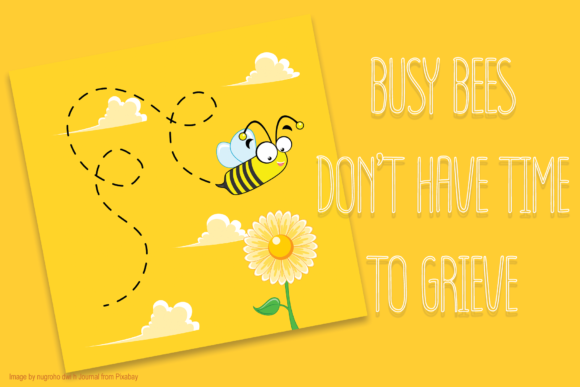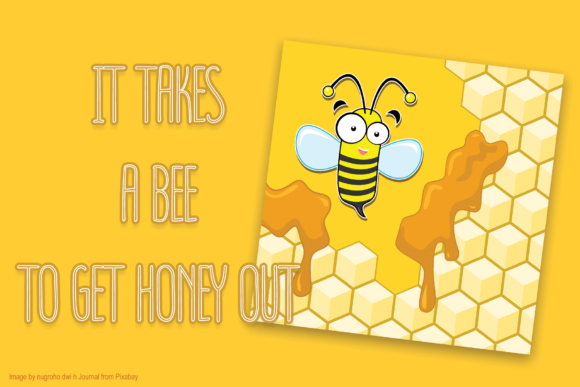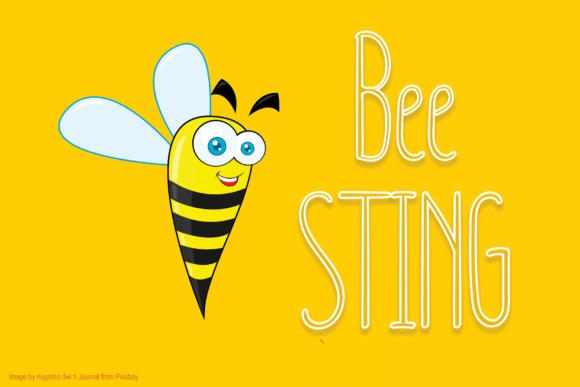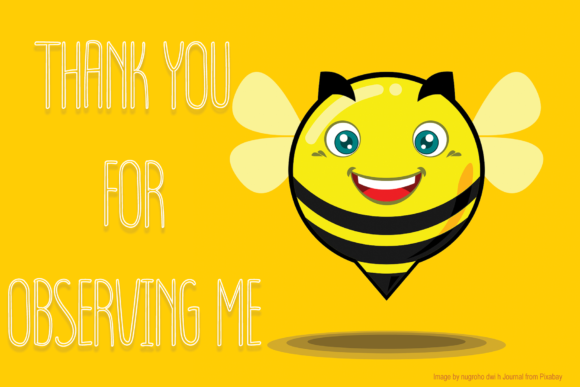
Bee Happy Font: The Perfect Addition to Your Design Arsenal
Are you tired of using the same old fonts in your designs? Look no further than the Bee Happy Font, a cute and friendly handwritten font that’s sure to bring a touch of whimsy to your projects. In this article, we’ll take a closer look at the Bee Happy Font, its features, and how it can elevate your designs.
What is Bee Happy Font?
Bee Happy Font is a beautiful, handwritten font that’s perfect for designers and crafters looking for a unique and playful touch. This dainty, simple, and neat font is designed to match a wide range of designs, both formal and informal. Whether you’re working on a wedding invitation, a children’s book, or a craft project, Bee Happy Font is sure to delight.
Key Features of Bee Happy Font
- Cute and Friendly: Bee Happy Font is a handwritten font that’s designed to be friendly and approachable. Its playful and whimsical feel makes it perfect for designs that need a personal touch.
- Dainty and Simple: This font is characterized by its dainty and simple design. The letters are clean and easy to read, making it perfect for use in a variety of designs.
- Neat and Legible: Bee Happy Font is a neat and legible font that’s easy to read, even at small sizes. This makes it perfect for use in designs where text needs to be clear and concise.
- Versatile: Bee Happy Font is a versatile font that can be used in a wide range of designs, from formal to informal. Whether you’re working on a wedding invitation or a craft project, this font is sure to fit the bill.
How to Use Bee Happy Font in Your Designs
Using Bee Happy Font in your designs is easy. Here are a few tips to get you started:
- Pair it with Other Fonts: Bee Happy Font pairs well with other fonts, including serif and sans-serif fonts. Try pairing it with a bold font for a playful contrast.
- Use it for Headings and Titles: Bee Happy Font is perfect for use in headings and titles. Its playful and whimsical feel makes it a great choice for adding a touch of personality to your designs.
- Add it to Your Digital Projects: Bee Happy Font can be used in a variety of digital projects, including websites, social media graphics, and email marketing campaigns.
- Use it for Crafting Projects: Bee Happy Font is also perfect for use in crafting projects, such as scrapbooking, card making, and DIY gifts.
Benefits of Using Bee Happy Font
There are many benefits to using Bee Happy Font in your designs. Here are a few:
- Unique and Playful: Bee Happy Font adds a unique and playful touch to your designs. Its whimsical feel makes it perfect for designs that need a personal touch.
- Easy to Read: Bee Happy Font is easy to read, even at small sizes. This makes it perfect for use in designs where text needs to be clear and concise.
- Versatile: Bee Happy Font is a versatile font that can be used in a wide range of designs, from formal to informal.
- Time-Saving: Using Bee Happy Font can save you time and effort in your design work. Its pre-designed letters and characters mean you don’t have to spend hours creating your own font.
In conclusion, Bee Happy Font is a cute and friendly handwritten font that’s perfect for designers and crafters looking for a unique and playful touch. Its dainty, simple, and neat design makes it versatile and easy to use in a wide range of designs. Whether you’re working on a formal or informal project, Bee Happy Font is sure to delight. So why not give it a try and see how it can elevate your designs?